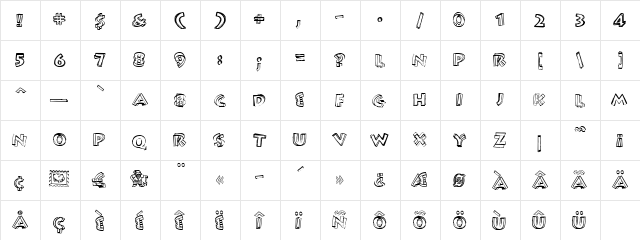
SupermanU-plain Regular
Design Context for SupermanU-plain Typeface
SupermanU-plain is a composed and adaptable typeface that performs quietly and consistently across a wide range of design contexts.